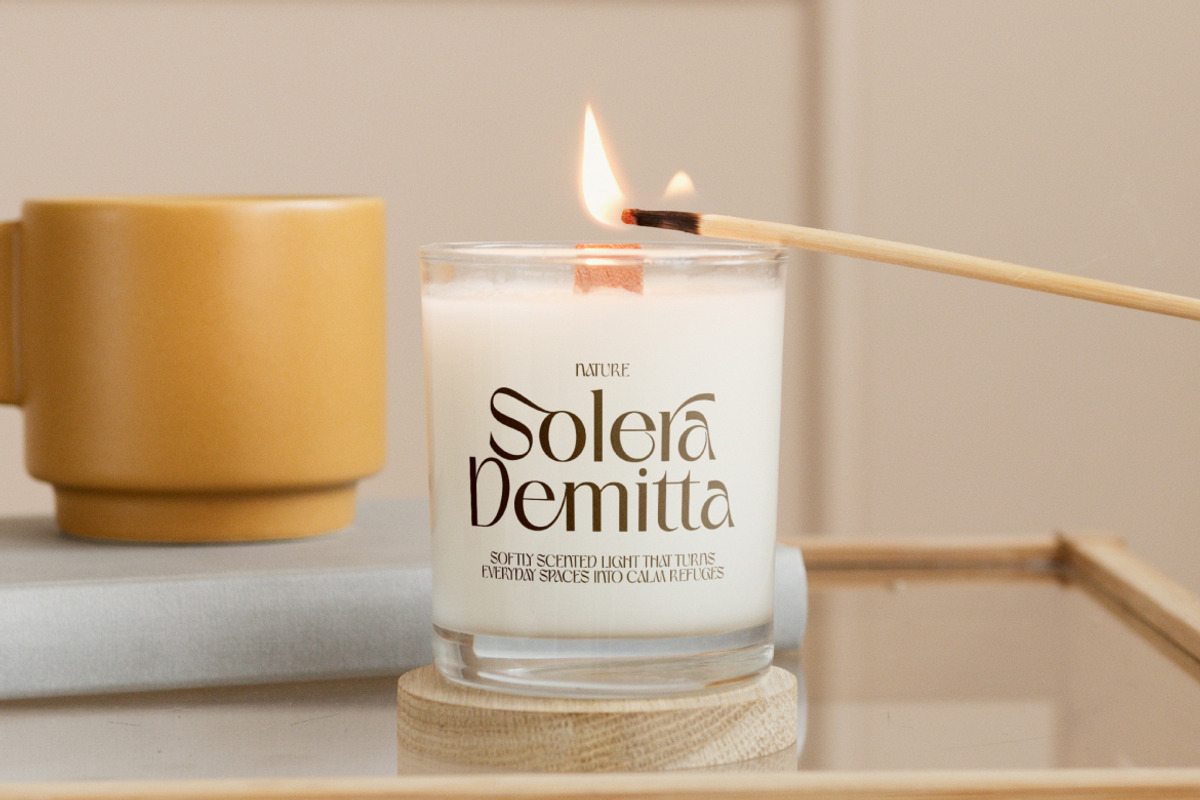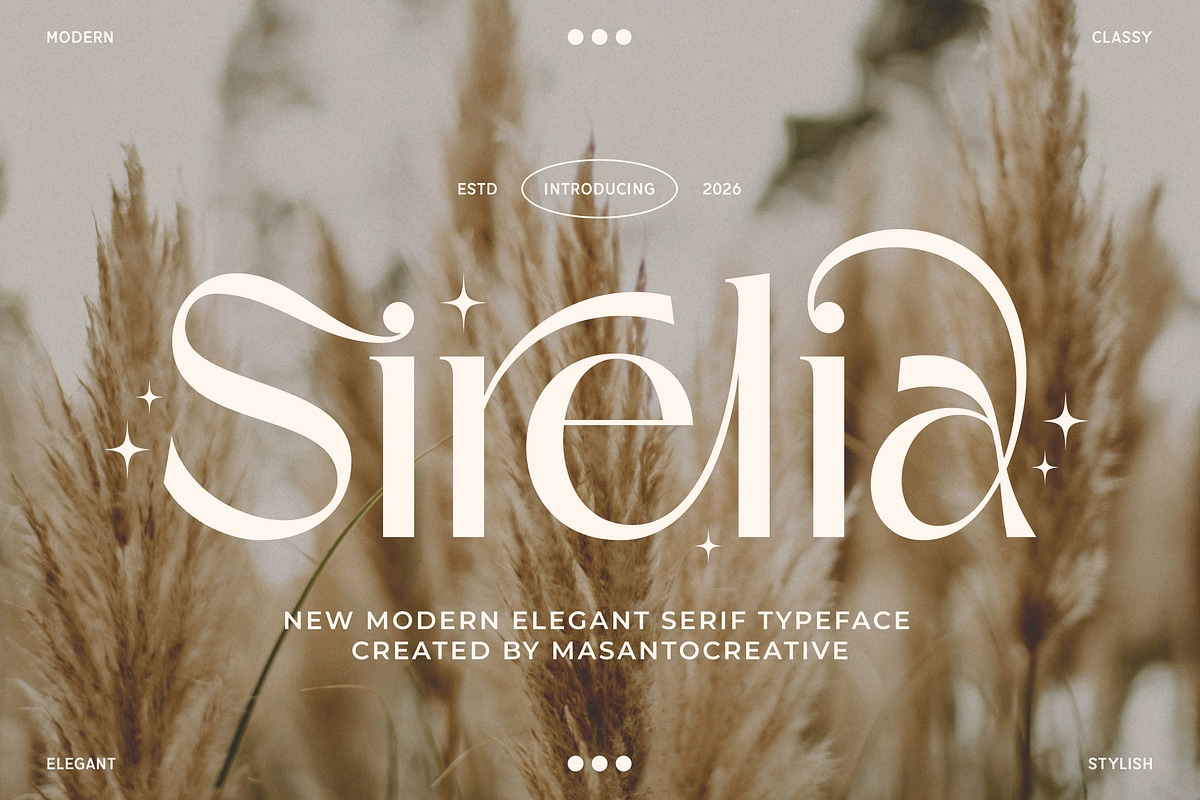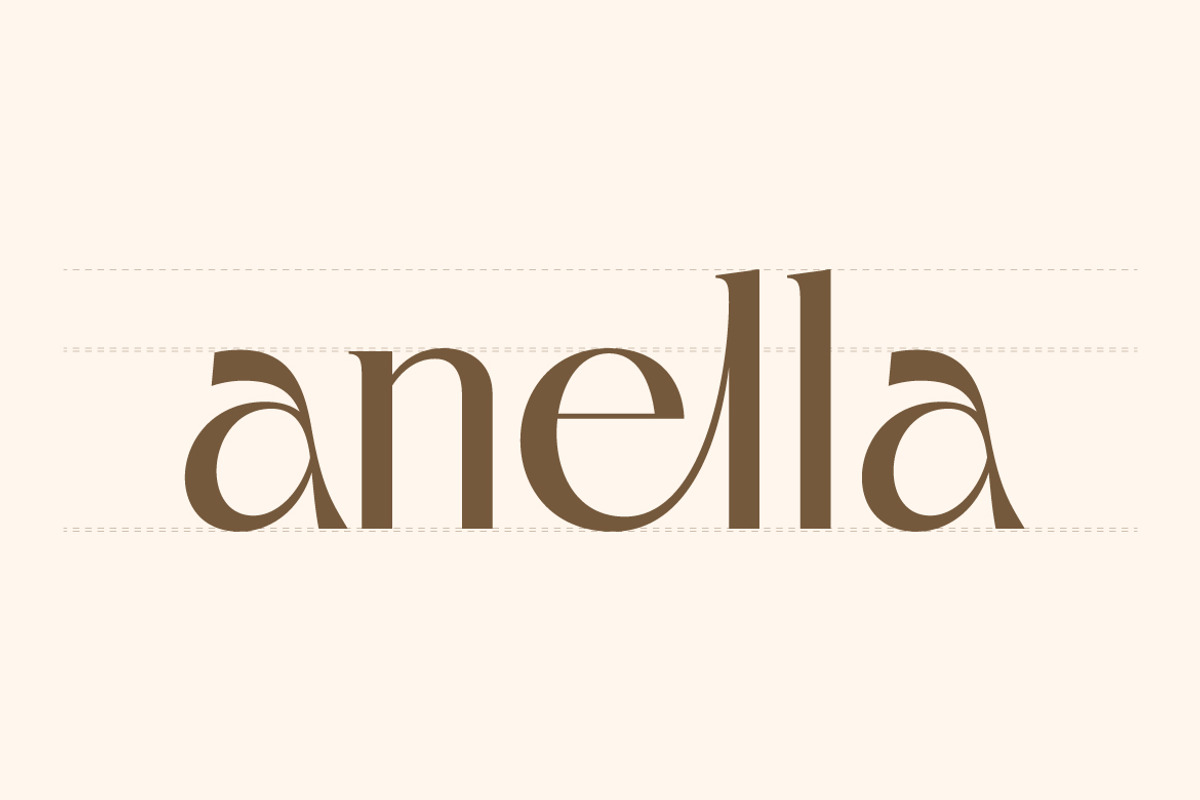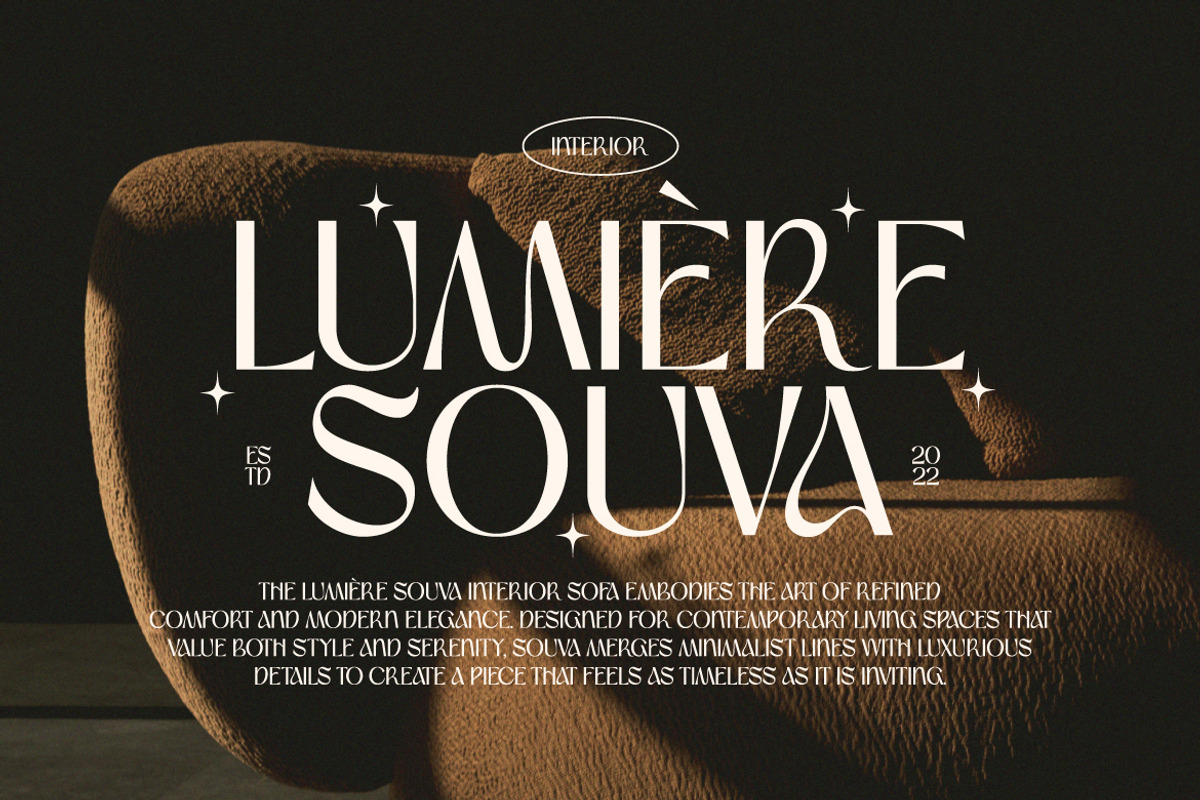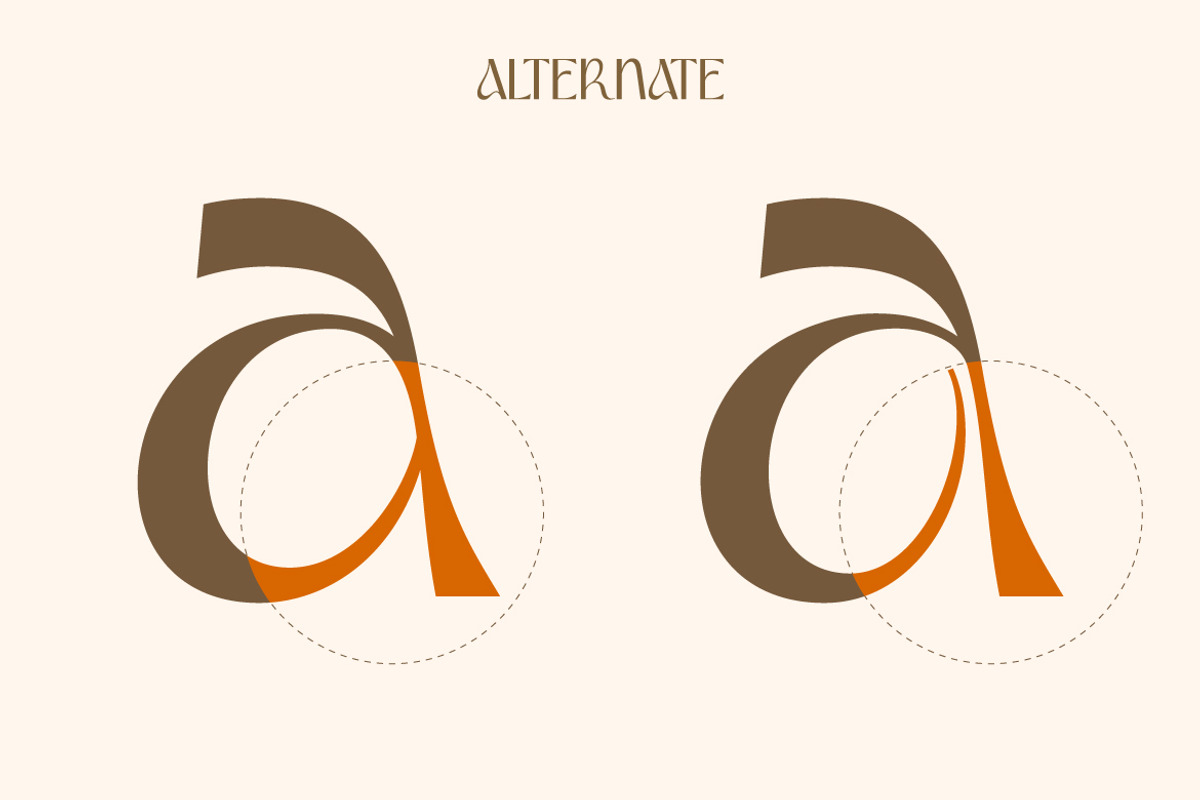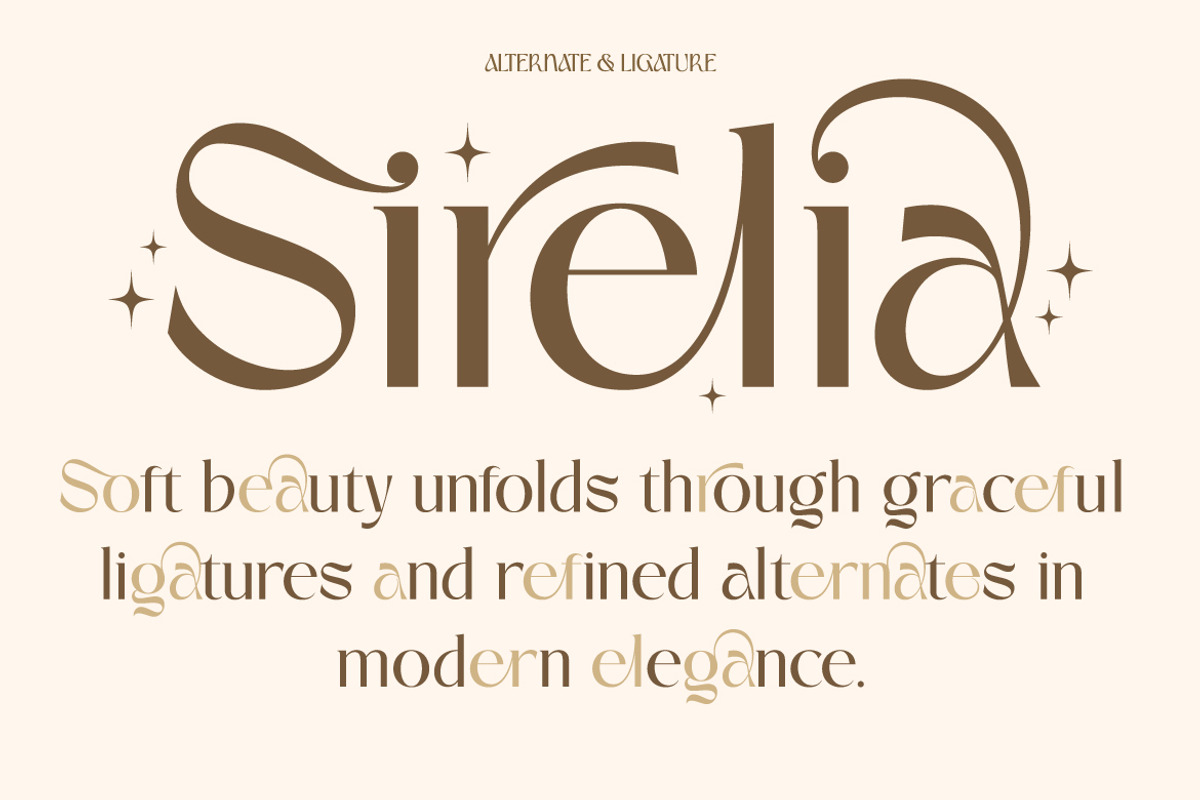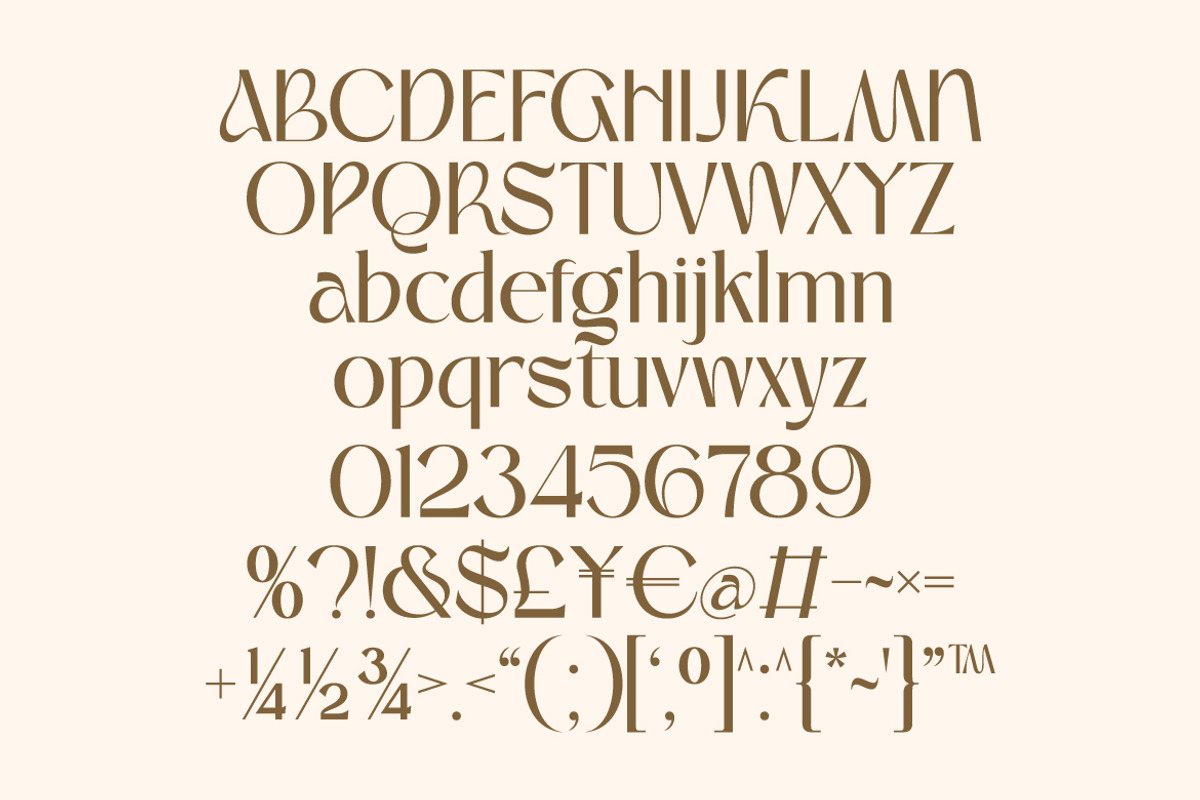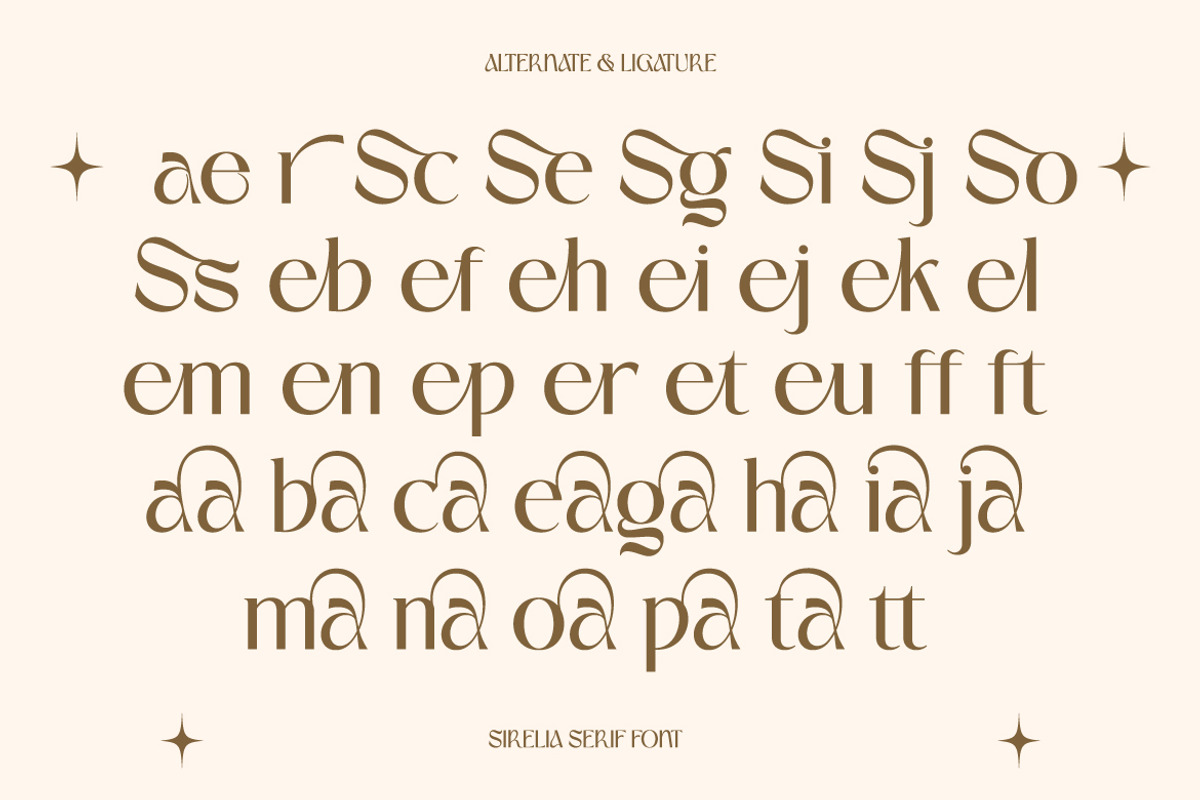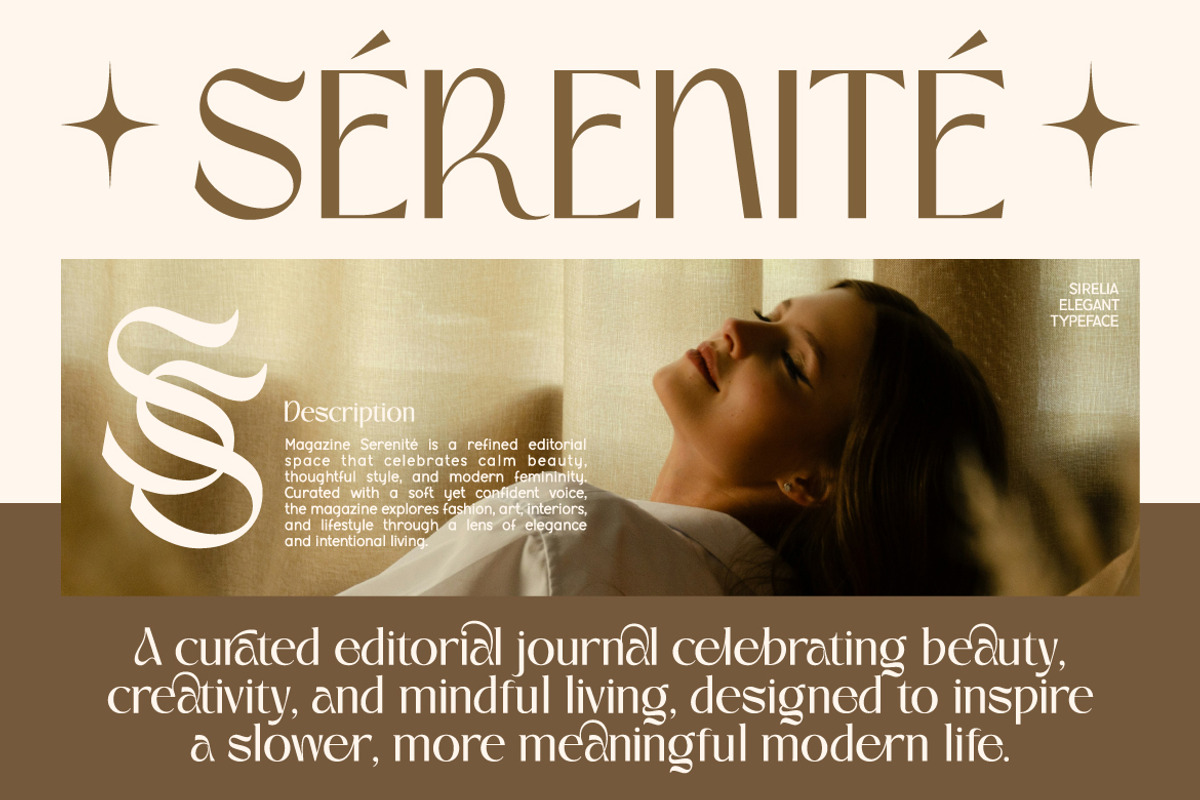
Sirelia – Modern Elegant Serif Typef
Sirelia is a modern elegant serif typeface designed to express refinement, softness, and timeless beauty. Crafted with graceful curves, balanced contrast, and subtle organic details, Sirelia blends classic serif elegance with a contemporary editorial aesthetic, making it perfect for sophisticated visual storytelling. Designed to feel warm yet luxurious, Sirelia works beautifully across fashion editorials, lifestyle magazines, interior branding, beauty products, and premium packaging. Its distinctive alternates and ligatures add a stylish, artistic touch, allowing designers to create expressive and memorable typographic compositions without losing readability. Whether you are designing a luxury brand identity, modern magazine layout, elegant logo, or refined product label, Sirelia delivers a calm, feminine, and modern character that elevates any design with effortless elegance.
- 38 Alternates & ligatures
- Numerals & punctuation
- Elegant modern serif style
- Stylish alternates & ligatures
- Editorial & luxury aesthetic